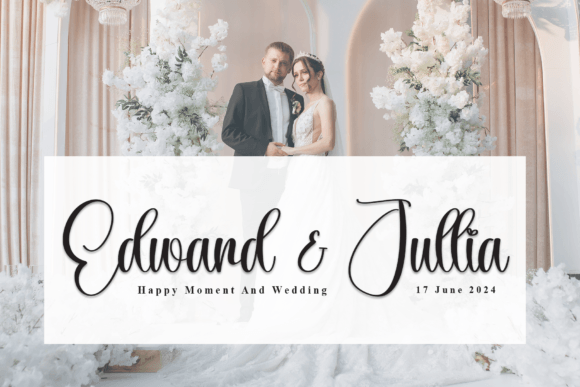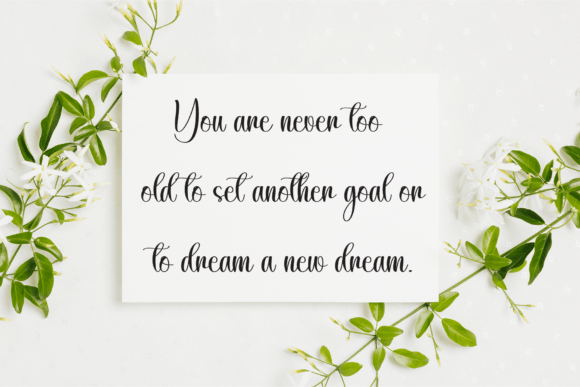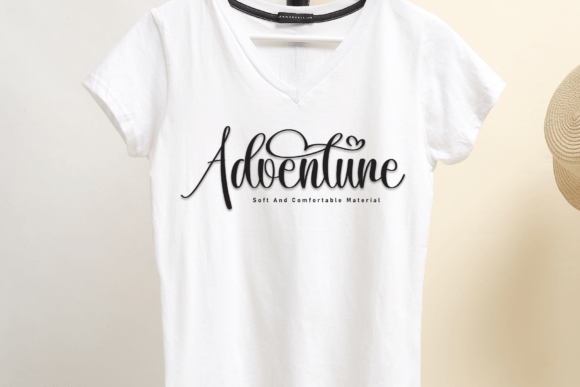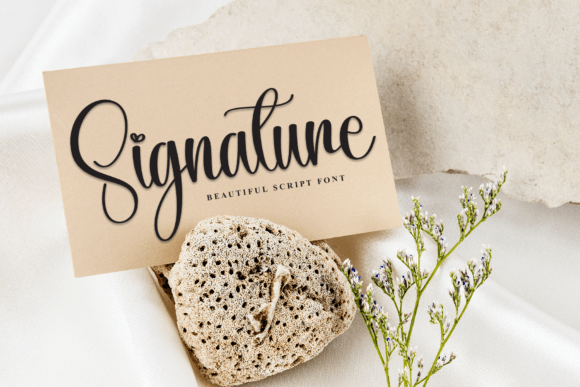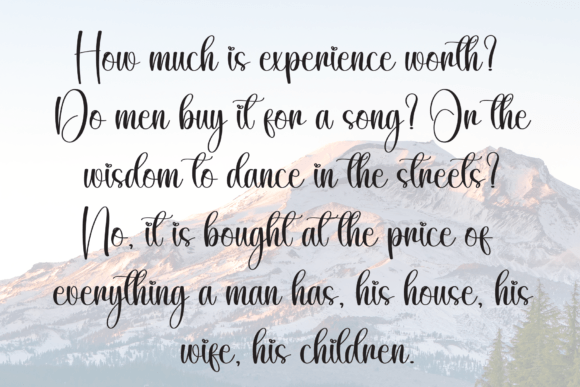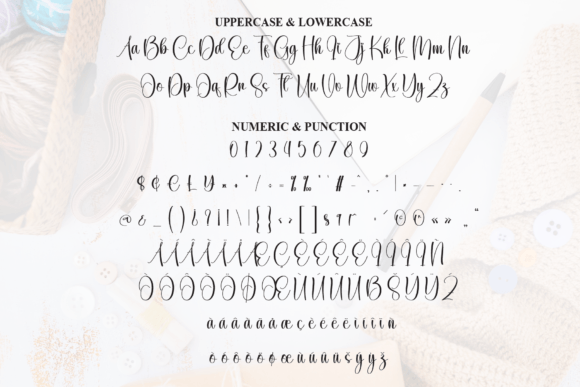
The Power of Creative Font: Elevating Your Designs with Elegance and Charm
I’ll never forget the time I was working on a wedding invitation project, and my client asked for a font that exuded elegance and sophistication. I scoured the internet, trying out font after font, but nothing seemed quite right. That was until I stumbled upon Creative Font. Its fluid strokes and natural flow immediately captivated me, and I knew I had found the perfect fit. In this article, I’ll share with you why Creative Font has become a staple in my design toolkit and how you can make the most of its beautiful features.
A Personal Review: What I Love About Creative Font
So, what makes Creative Font so special? Here are a few things that I absolutely love:
- ✨ Elegant and sophisticated look that’s perfect for high-end designs
- ✅ Fluid strokes and natural flow that create a captivating visual effect
- 💫 Highly versatile and can be used for a wide range of design projects, from invitations to branding and social media
- 🎨 Beautiful OpenType features, glyphs, and stylistic alternates that add an extra layer of creativity to your designs
While Creative Font is an amazing addition to any design project, there are a few small quirks to be aware of:
- 🤔 Some users may find the font a bit too script-heavy for certain design applications
- ⚠️ May not be the best choice for very long blocks of text, as it can be a bit challenging to read
The Story Behind Creative Font
Creative Font was designed by a team of talented typographers who wanted to create a font that exuded elegance and charm. Inspired by classic calligraphy and handwriting, they carefully crafted each letterform to create a beautiful and sophisticated script font. Today, Creative Font is loved by designers and crafters around the world for its versatility and beauty.
| What is Creative Font? | Creative Font is a stylish handwritten script font that exudes elegance and charm. |
| What design projects is Creative Font best suited for? | Creative Font is perfect for adding a personal touch to invitations, branding, social media, and more. |